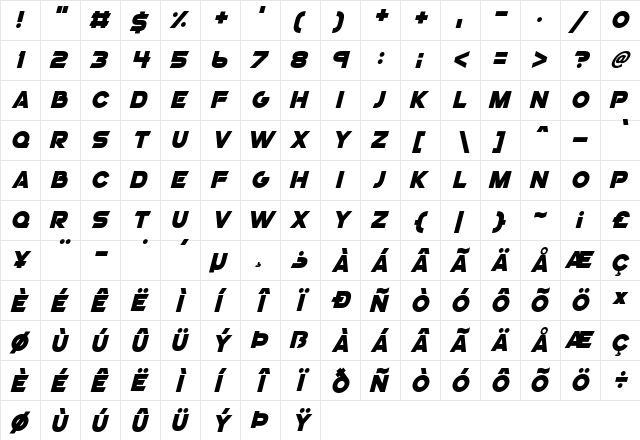
GoGo Poster 2020 Italic
Design Context for GoGo Poster 2020 Typeface
GoGo Poster 2020 offers clean, dependable letterforms without strong stylistic allegiance, making it a practical choice for designers who need flexibility. The dynamic lean of this cut emphasises speed and emphasis in any layout.
Pro Tip: Try GoGo Poster 2020 for annotation and caption copy alongside an upright companion — the contrast in angle creates a dynamic but ordered typographic system.